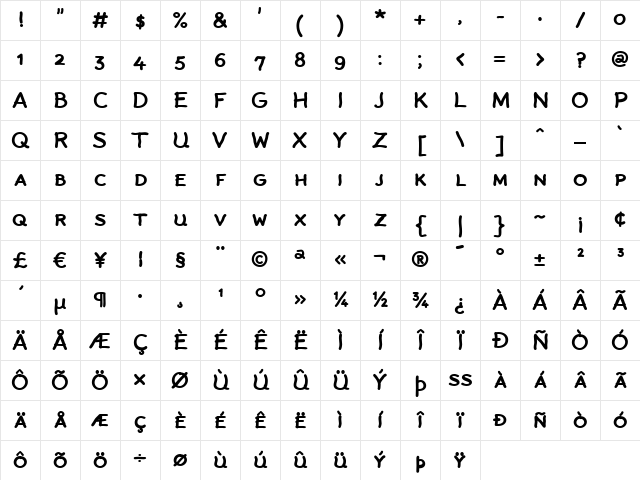
Rattlescript-BoldCaps Regular Free Font
Rattlescript-BoldCaps Regular
Foundry: Marten Thavenius, published by Fontshop International for the FontFont library
Design Context for Rattlescript-BoldCaps
Rattlescript-BoldCaps flows with the natural rhythm of handwritten lettering, making it ideal for designs that call for warmth and personal expression. Its bold stroke weight gives it real presence on the page.
Font Pairing: Combine Rattlescript-BoldCaps with a simple geometric sans for maximum contrast - the tension between flowing curves and clean structure is a classic typographic pairing.
Pro Tip: Use Rattlescript-BoldCaps for short runs of text - names, titles, or taglines. Extended body copy in script faces tires the eye quickly.
Who designed the Rattlescript-BoldCaps Regular font?
This font was published by Marten Thavenius, published by Fontshop International for the FontFont library. Check the technical specs section for copyright and designer details.